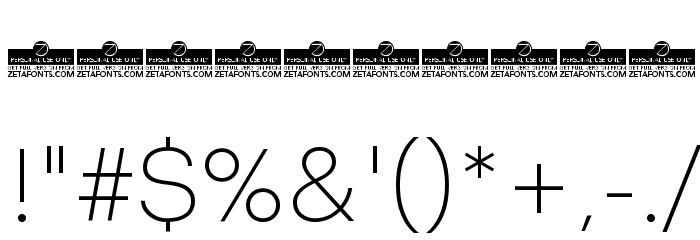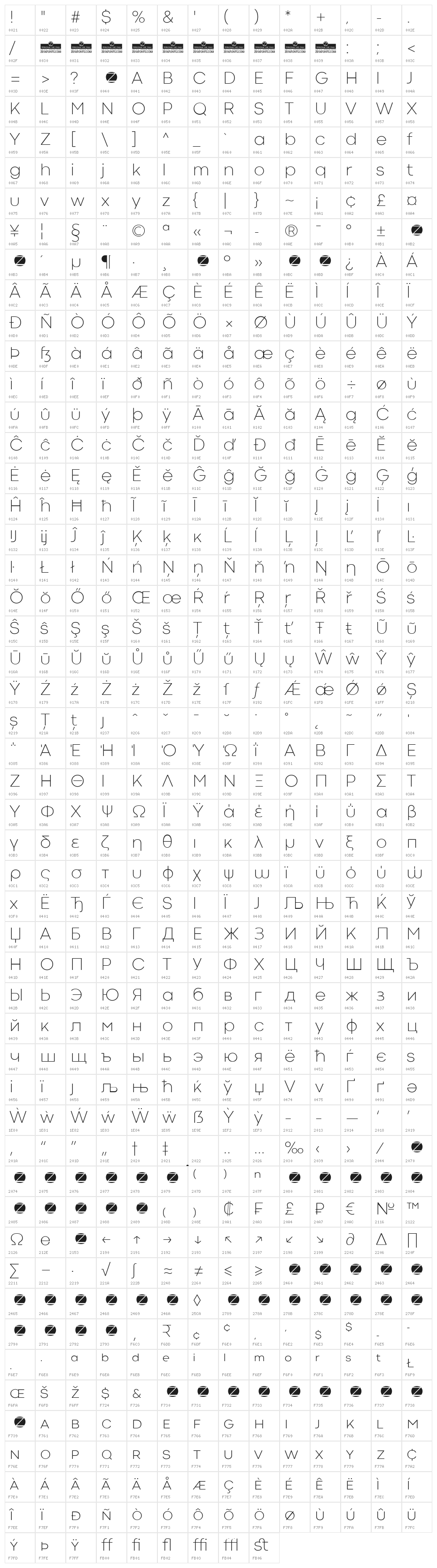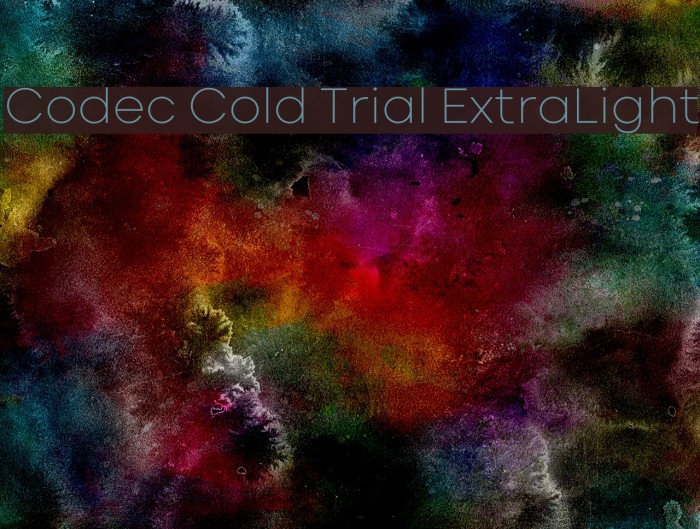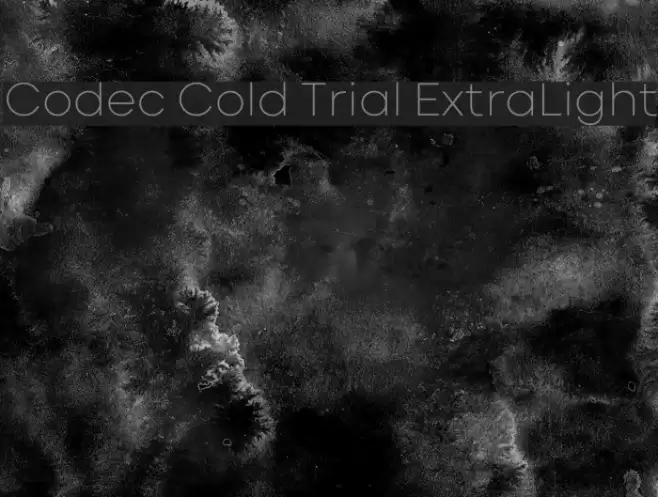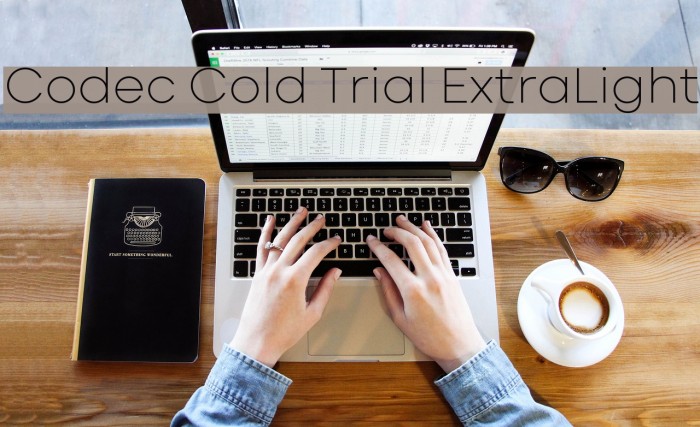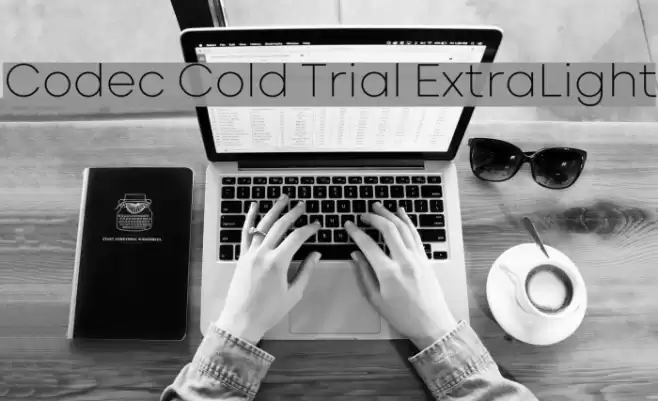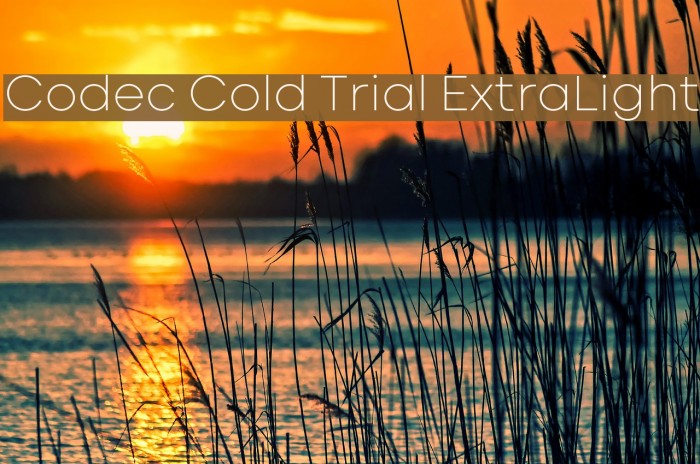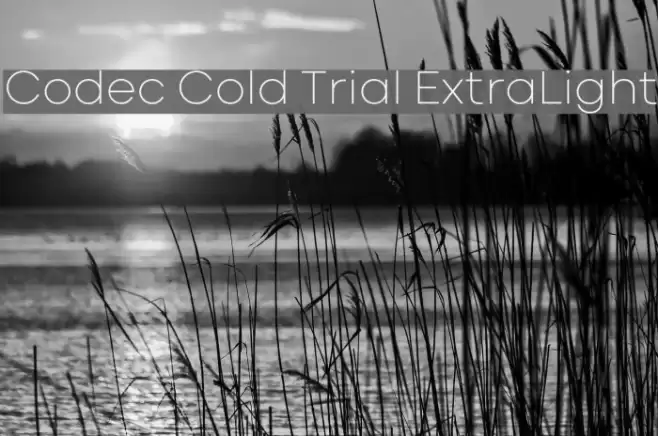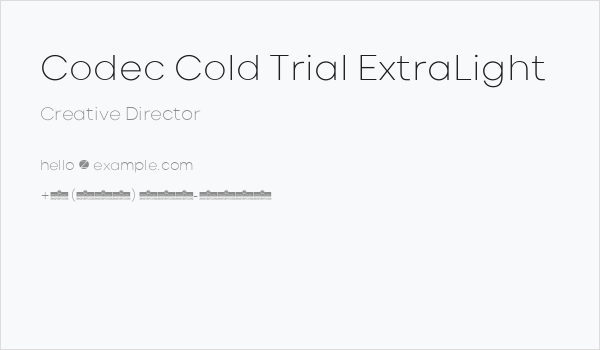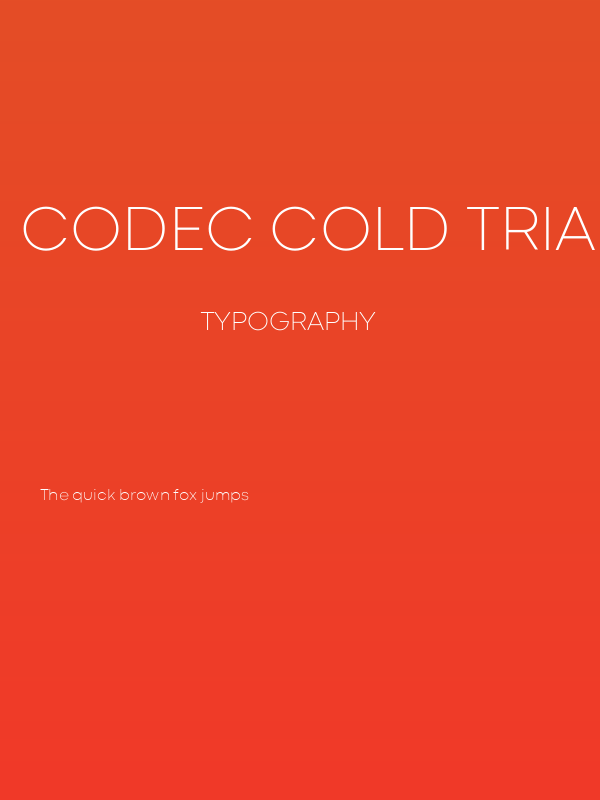
Codec Cold Trial ExtraLight Font
Codec Cold Trial ExtraLight Description
This font features a clean and minimalist design, characterized by its thin, uniform strokes and geometric shapes. The uppercase and lowercase letters maintain a consistent height and width, creating a harmonious and balanced appearance. The numerals and special characters are crafted with the same precision, ensuring readability and elegance. Its simplicity and clarity make it suitable for modern and contemporary design projects.
| Proposed Projects | Ideal for modern branding, digital interfaces, minimalist posters, and editorial design. |